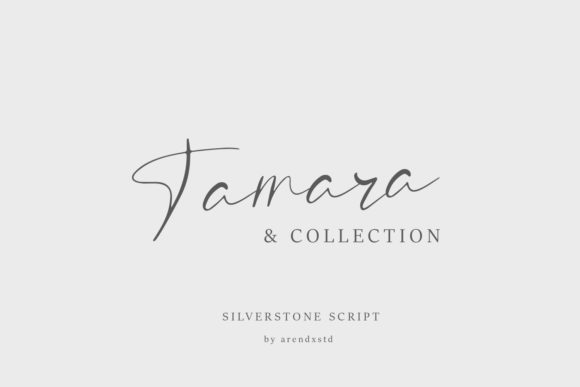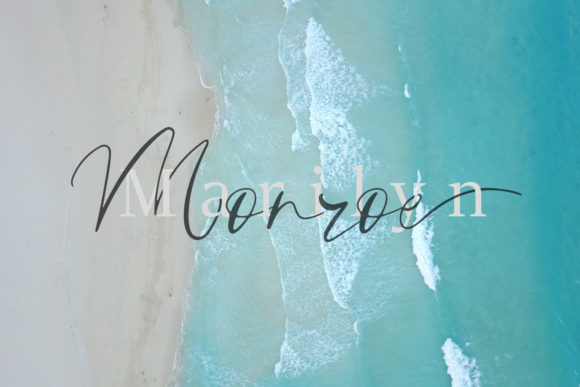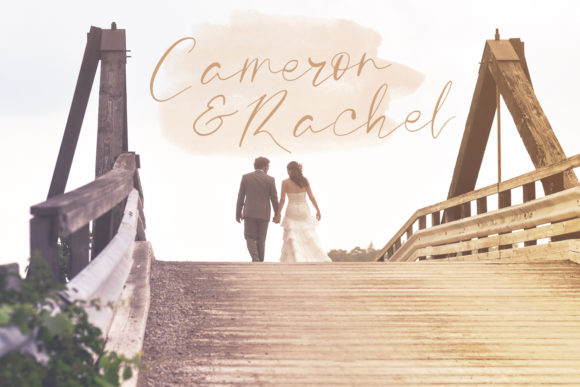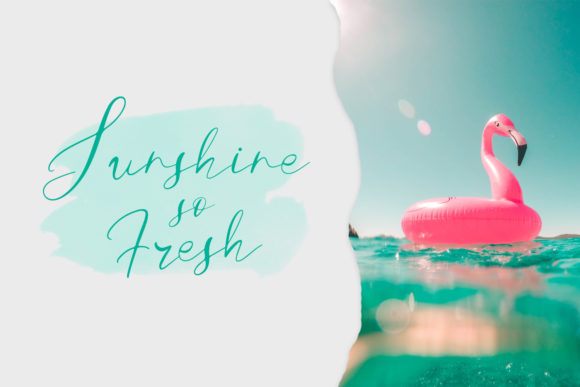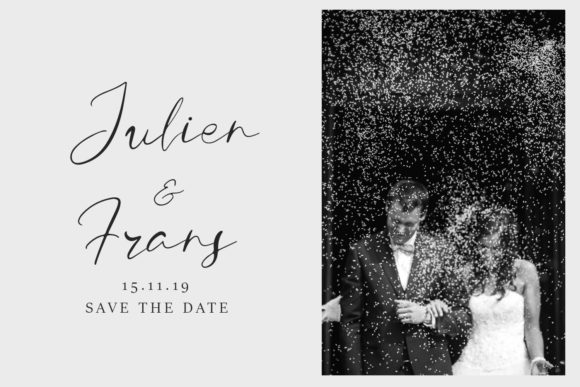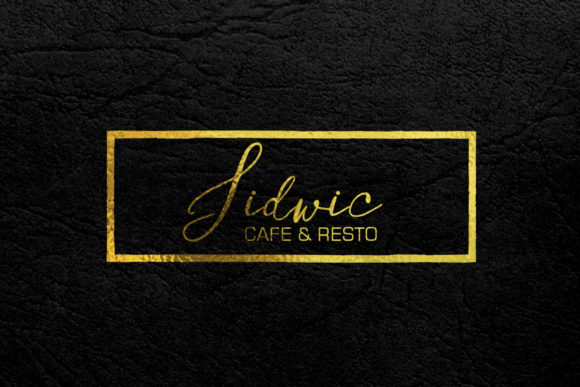
Introduction to Silverstone Font
Have you ever stared at a blank page, waiting for that spark of creativity to strike? You know, that moment when everything falls into place and your design comes to life? For designers like you, that moment is precious, and the right font can be the difference between a great design and a mediocre one.
That’s where the Silverstone Font comes in – a cool and fun handwritten font that’s sure to bring a smile to your face. With its unique style and friendly vibe, this font is the perfect addition to any creative project. Whether you’re working on a high-quality brochure, a website, or a social media graphic, the Silverstone Font is sure to add a touch of personality to your design.
Key Features of Silverstone Font
• High-quality, elegant font ideal for creative projects and design resources.
• Includes a wide range of characters, including uppercase and lowercase letters, numbers, and punctuation marks.
• Designed to be highly legible at various font sizes, from 12 to 72 points, making it suitable for both body text and headings.
Honest Review: Silverstone Font
As a designer, I’m always on the lookout for high-quality design resources to elevate my creative projects. Recently, I had the opportunity to try out the Silverstone Font, and I’m excited to share my honest review.
• ✨ Elegant and modern aesthetic that’s perfect for minimalist designs
• ✨ High-quality vector format that ensures crisp and clear results
What doesn’t:
• ⚠️ Limited character set, which may not be suitable for lengthy text-based designs
Overall, I’m impressed with the Silverstone Font’s sleek design and versatility. While it may have some limitations, it’s an excellent addition to any designer’s toolkit, especially for creative projects requiring a modern and sophisticated look. Whether you’re working on a logo, branding, or web design, the Silverstone Font is definitely worth considering.
The Silverstone Font is a versatile design resource that can be used in a variety of contexts, including business presentations, marketing materials, and creative projects. Its high-quality design and transparent background make it an ideal choice for designers looking for a professional and visually appealing font.